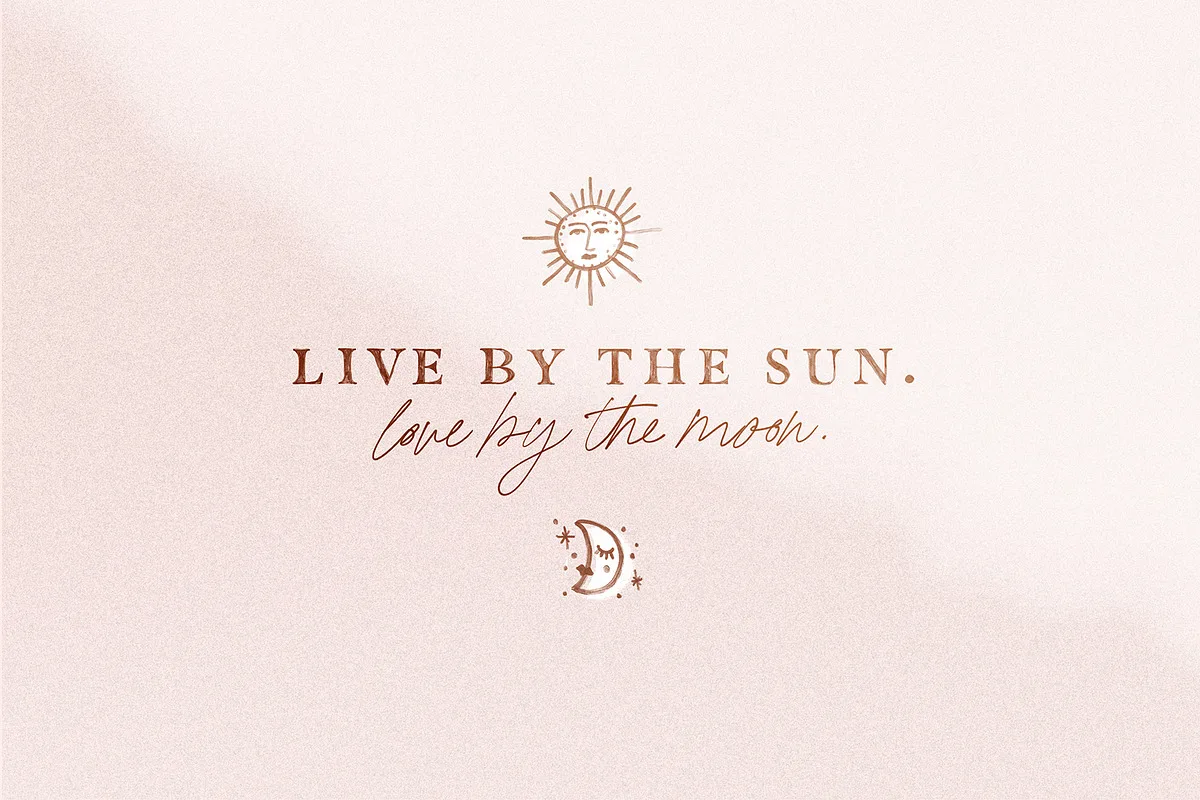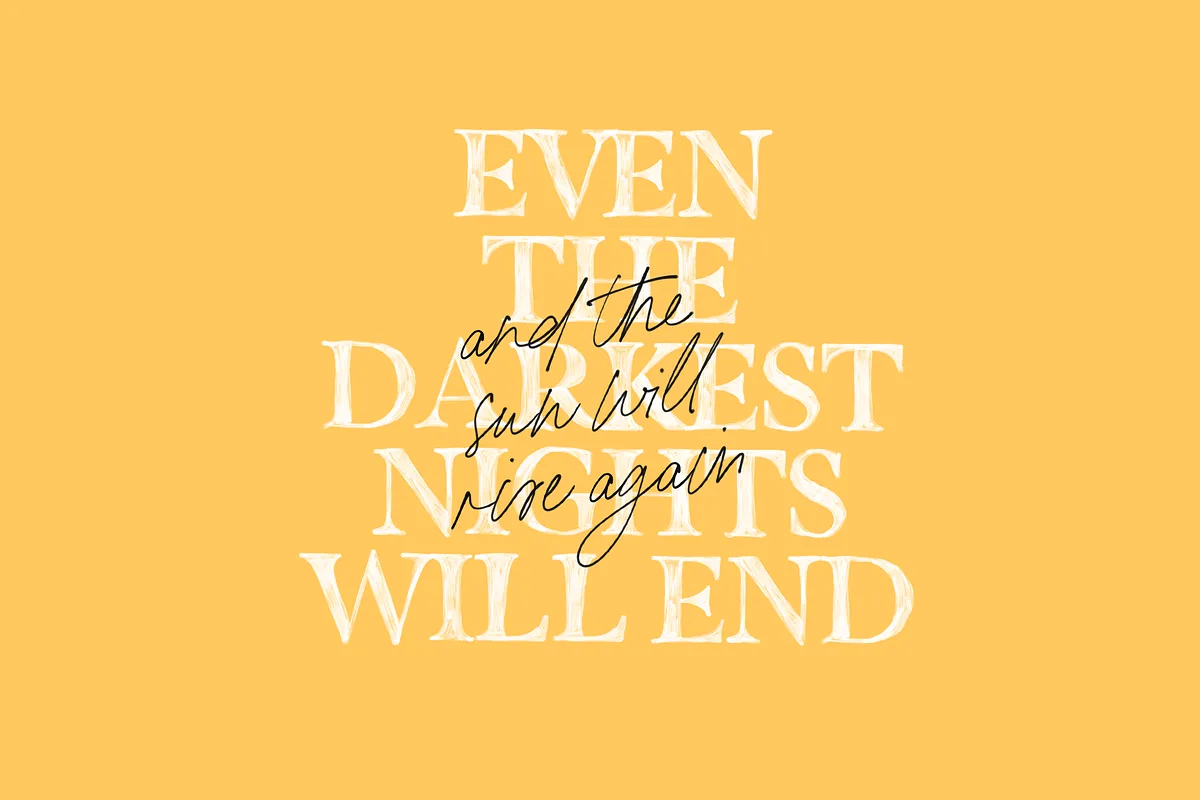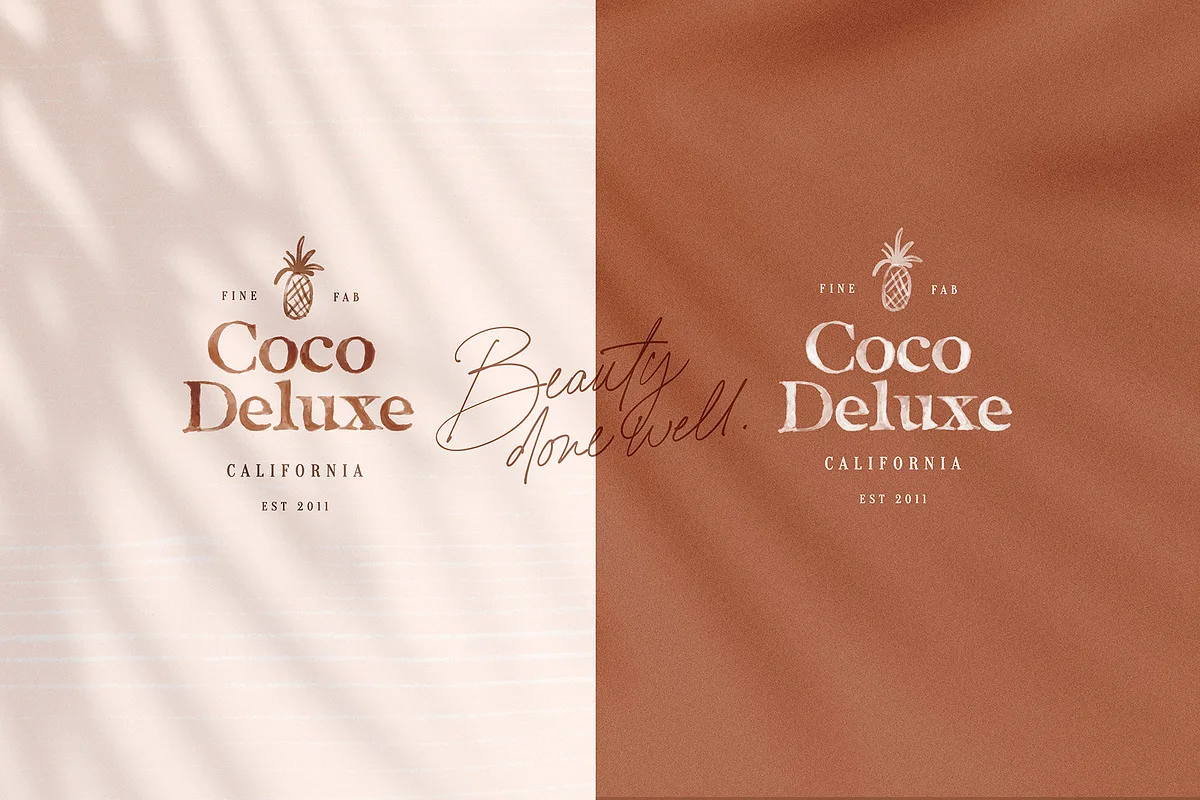
Slap on those sunnies and grab an umbrella drink – while you flip through the new California Palms Font & Graphics Collection :). The Collection consists of SVG and regular fonts as well as a large selection of trending summer-themed graphics. Have a look through the previews above to get inspired with what you can make and to get those creative juices flowing. To showcase the versatility of the pack – I’ve tried to include a wide variety of design suggestions for you – so be sure to scroll through them all – I’m sure you’ll be able to produce even more exciting ideas!
Real Watercolour and marker pen texture of the SVG Serif fonts add and extra authenticity that regular fonts just can’t offer.
A stylish script as both an SVG and Regular font, compliments both Serifs beautifully – but is just as gorgeous when used on its own.